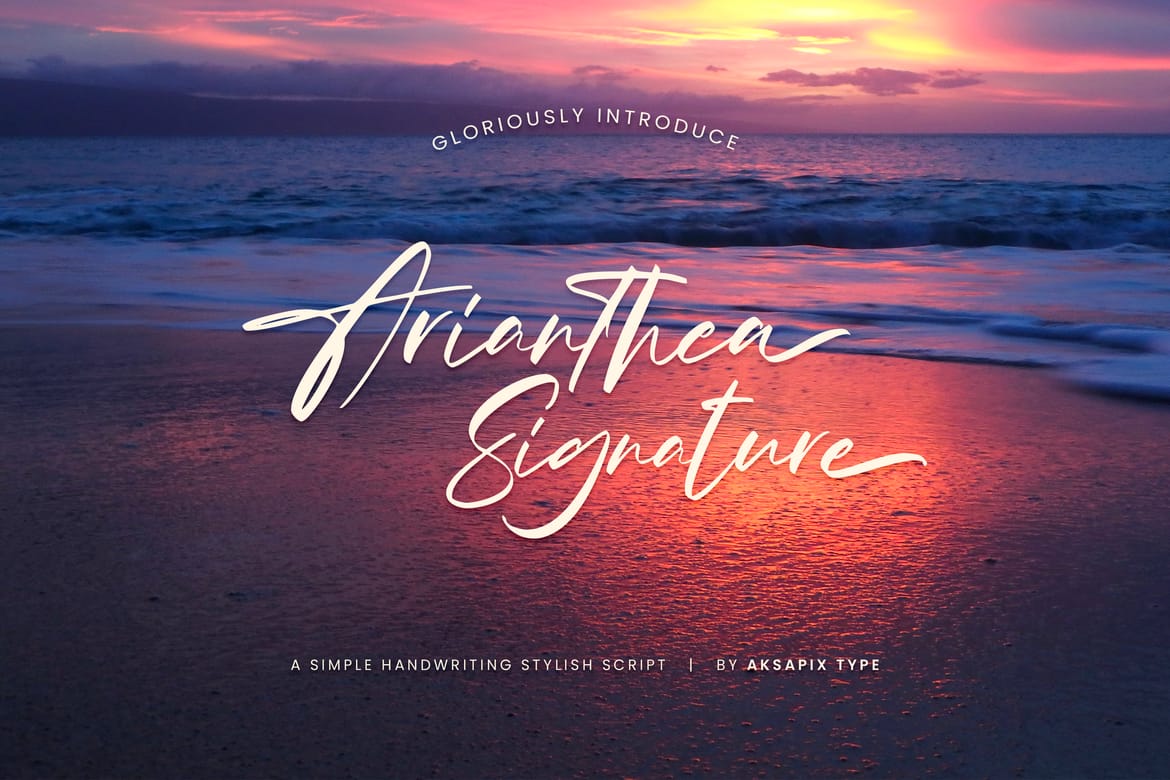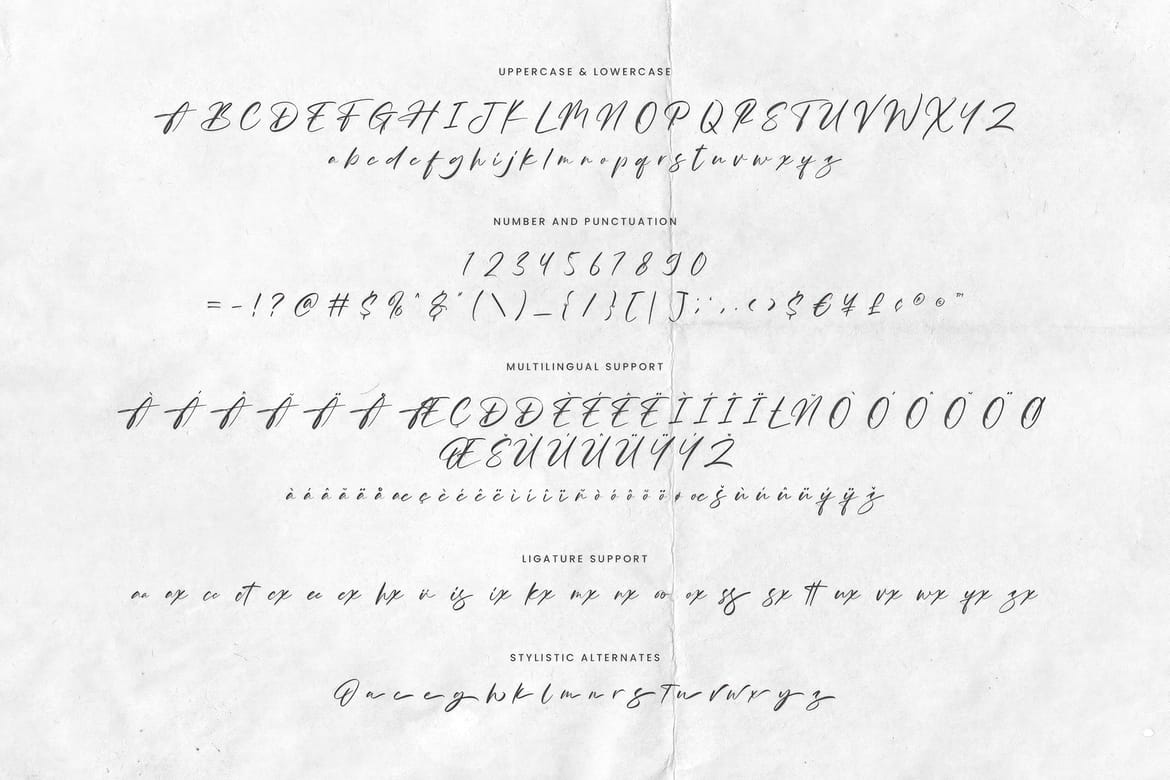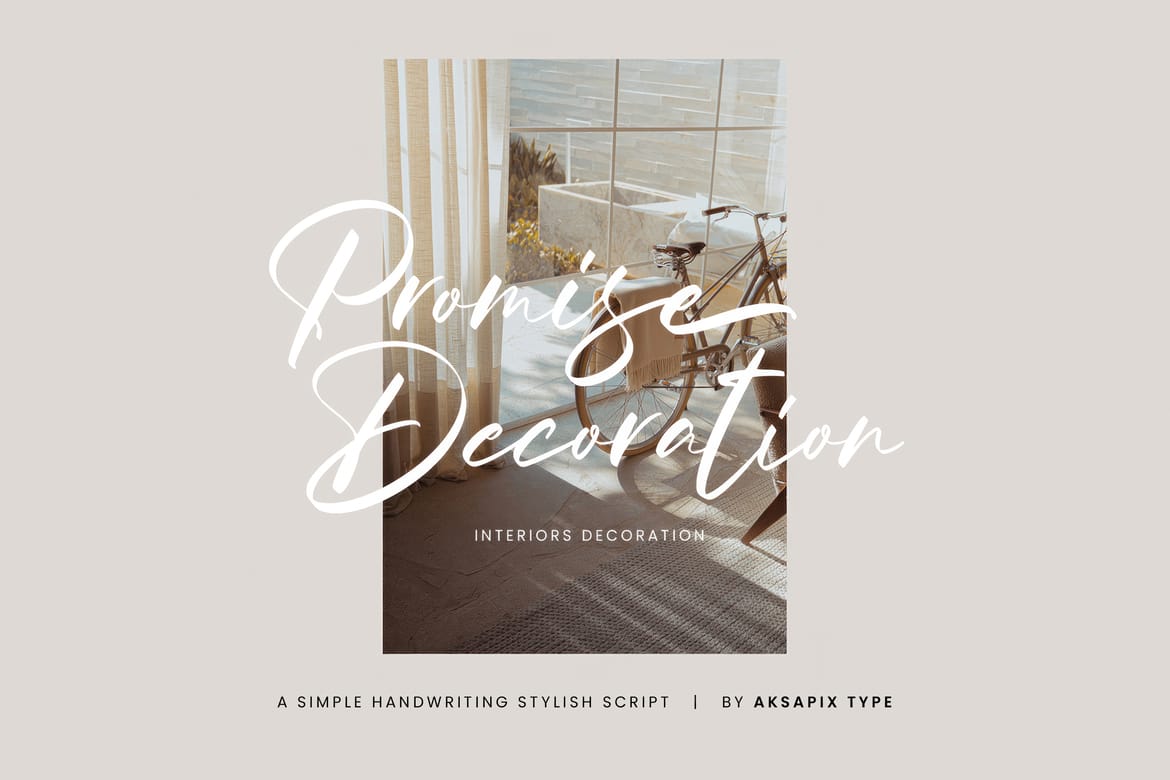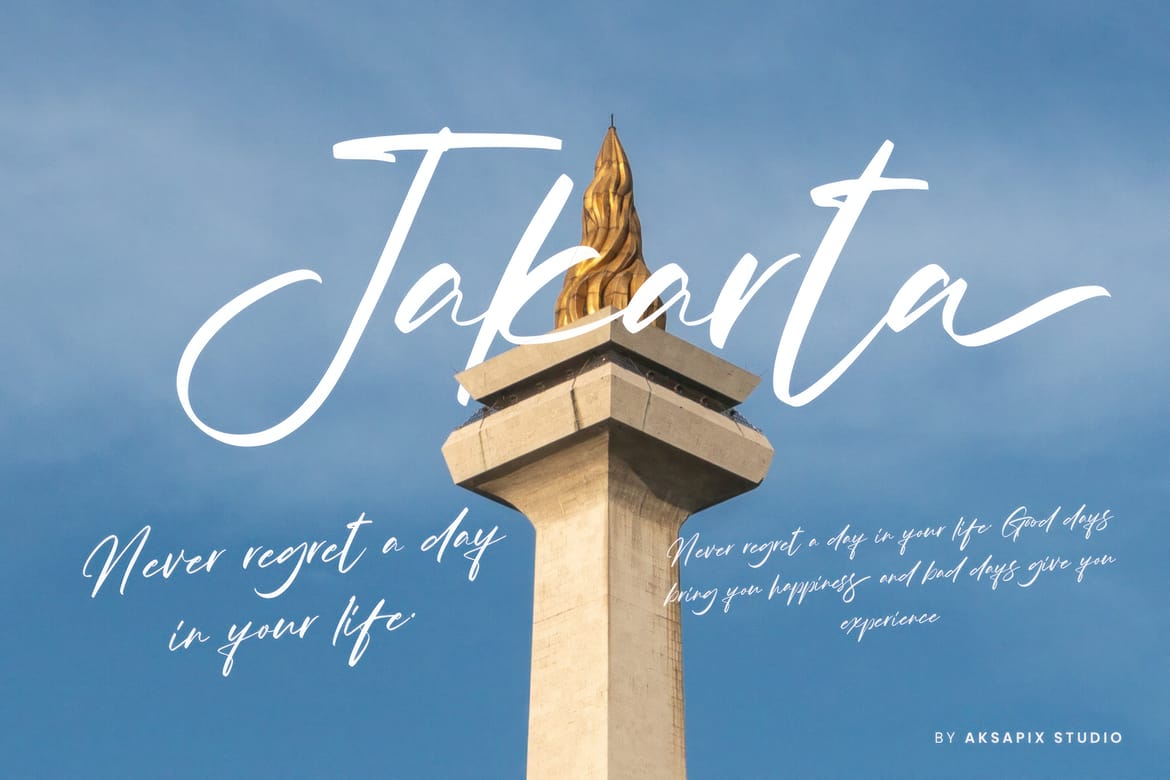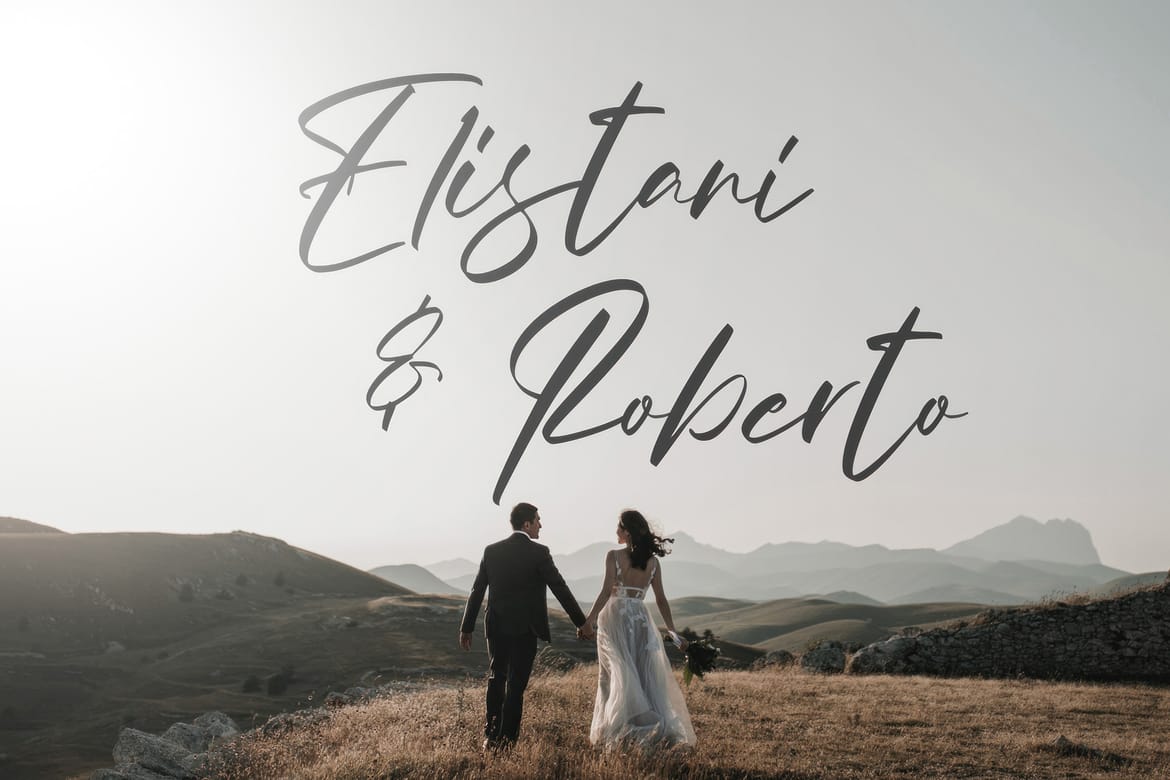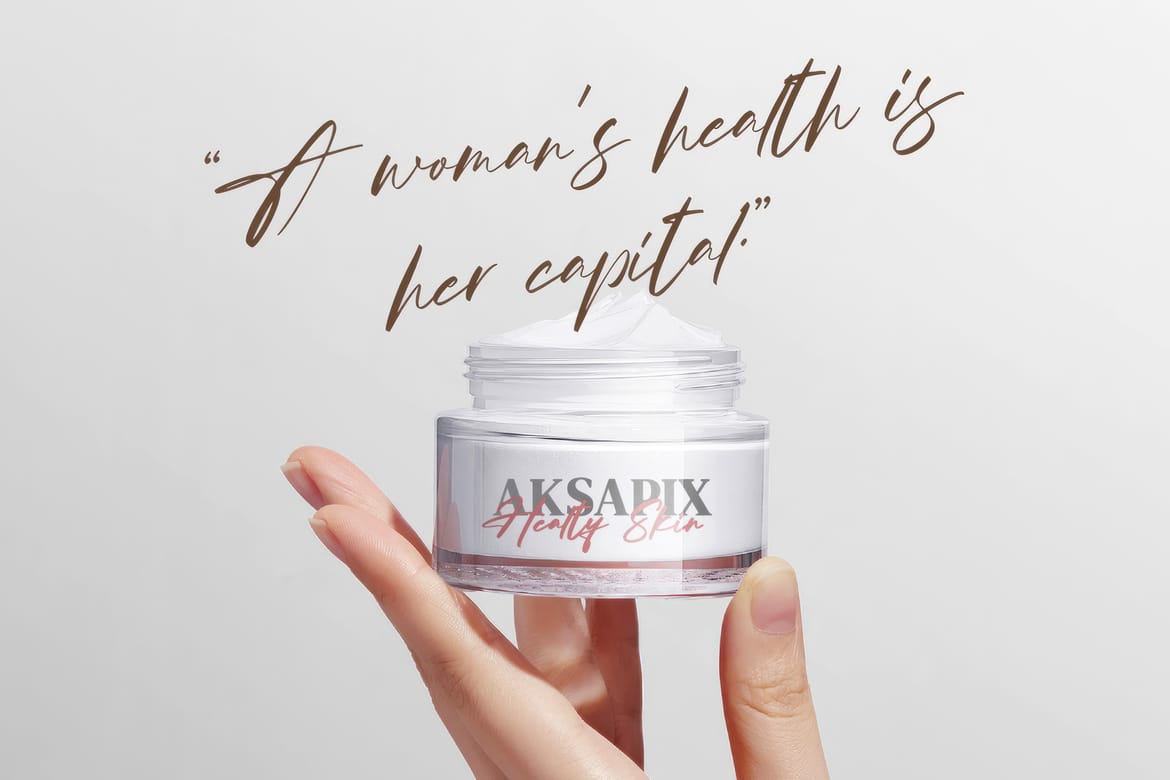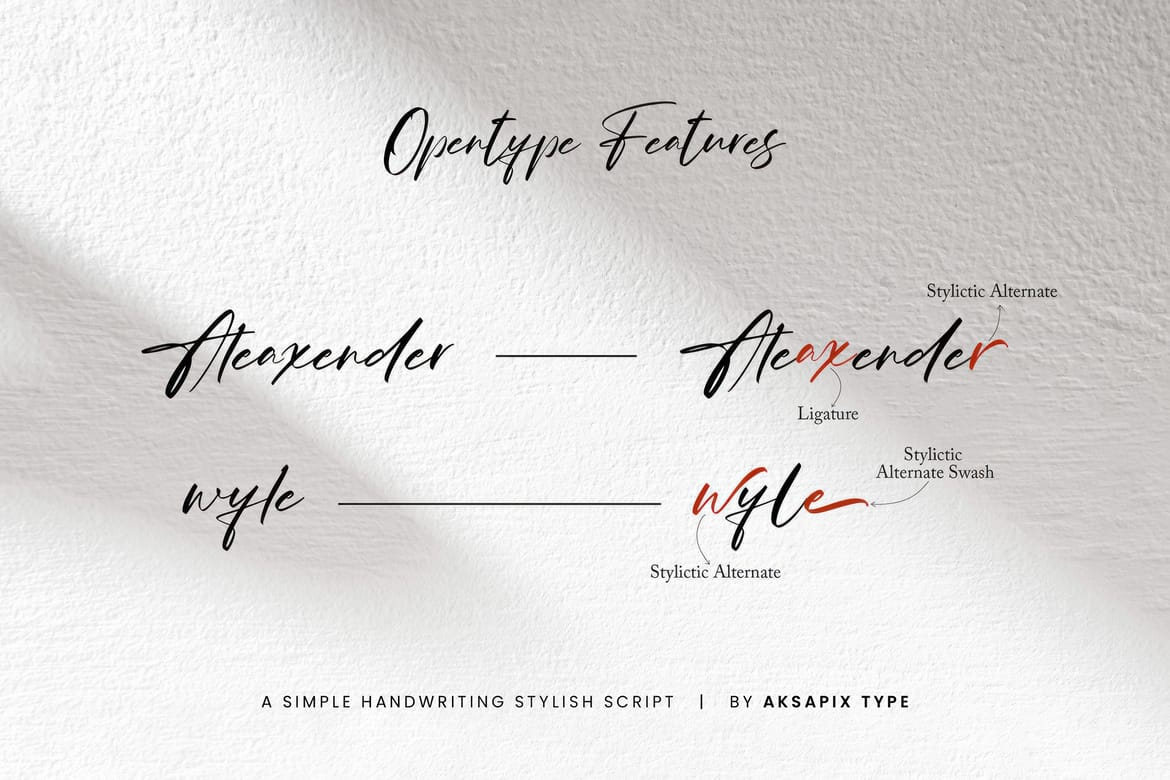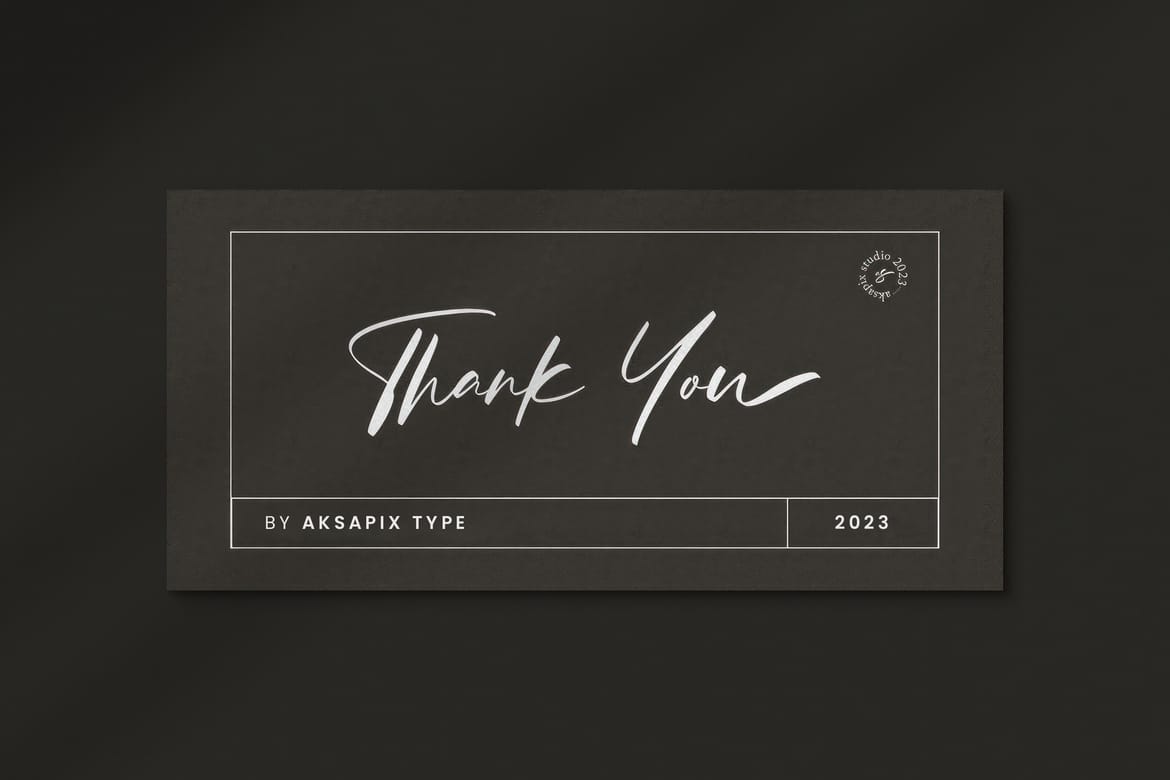
Arianthea Signature is a beautifully crafted script font that adds a touch of elegance and sophistication to a wide range of design projects. This versatile font is well-suited for various purposes, including logos, wedding invitations, greeting cards, social media designs, and more. With its graceful strokes and fluid curves, "Arianthea Signature" exudes a sense of charm that elevates your creations.
This script font is designed to be a perfect choice for those seeking a signature-style font that effortlessly complements various design contexts. Whether you're crafting a wedding invitation or designing for social media, "Arianthea Signature" provides the creative flexibility you need to make a lasting impression.